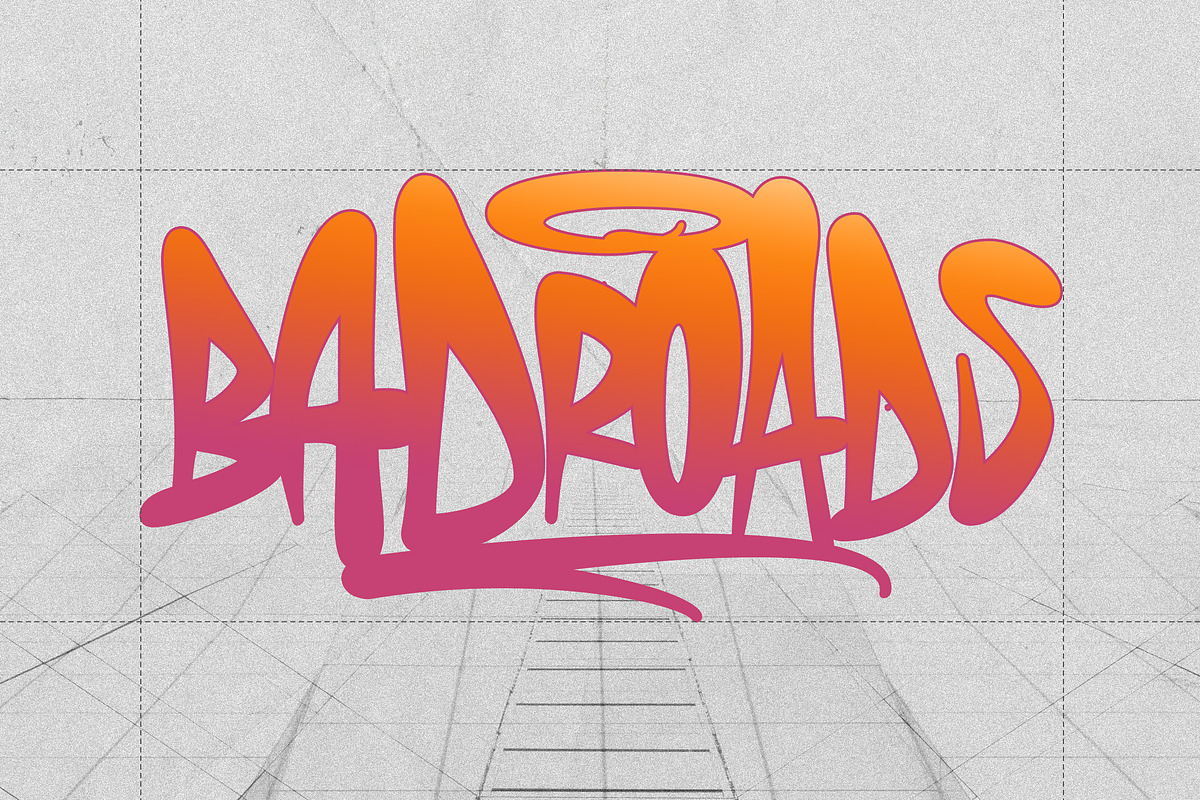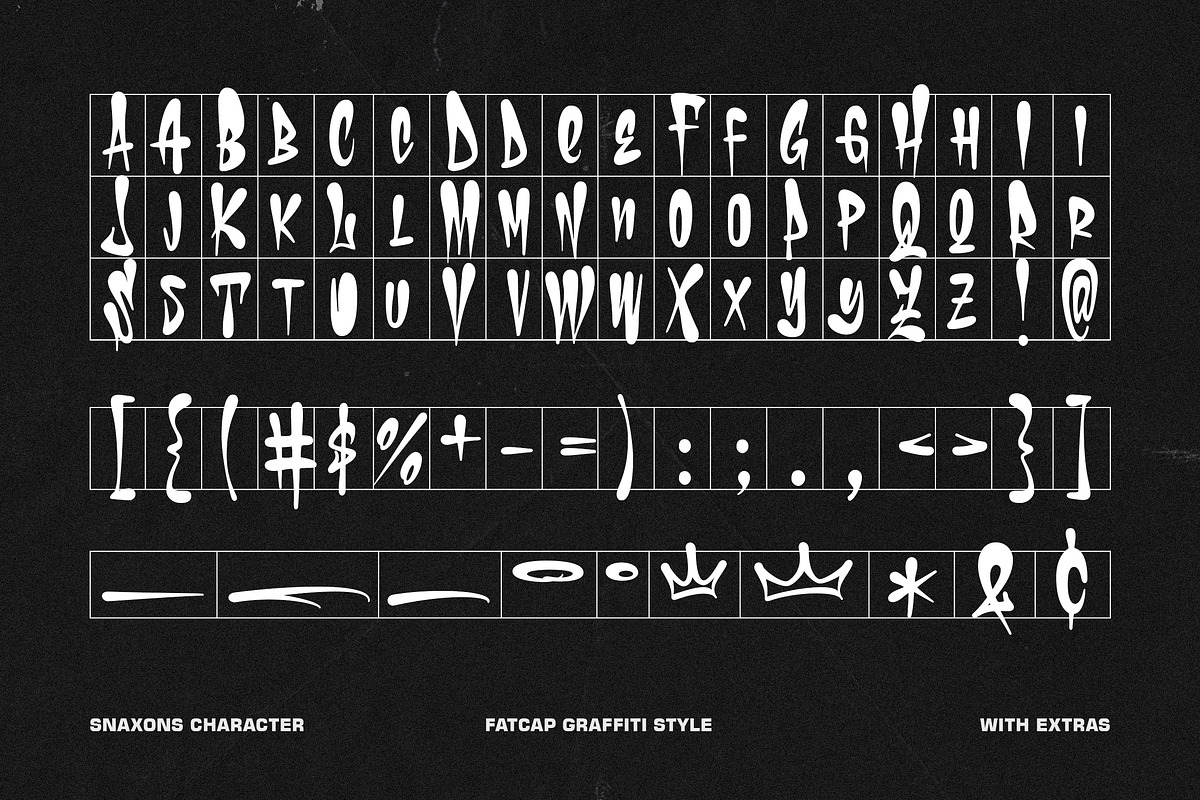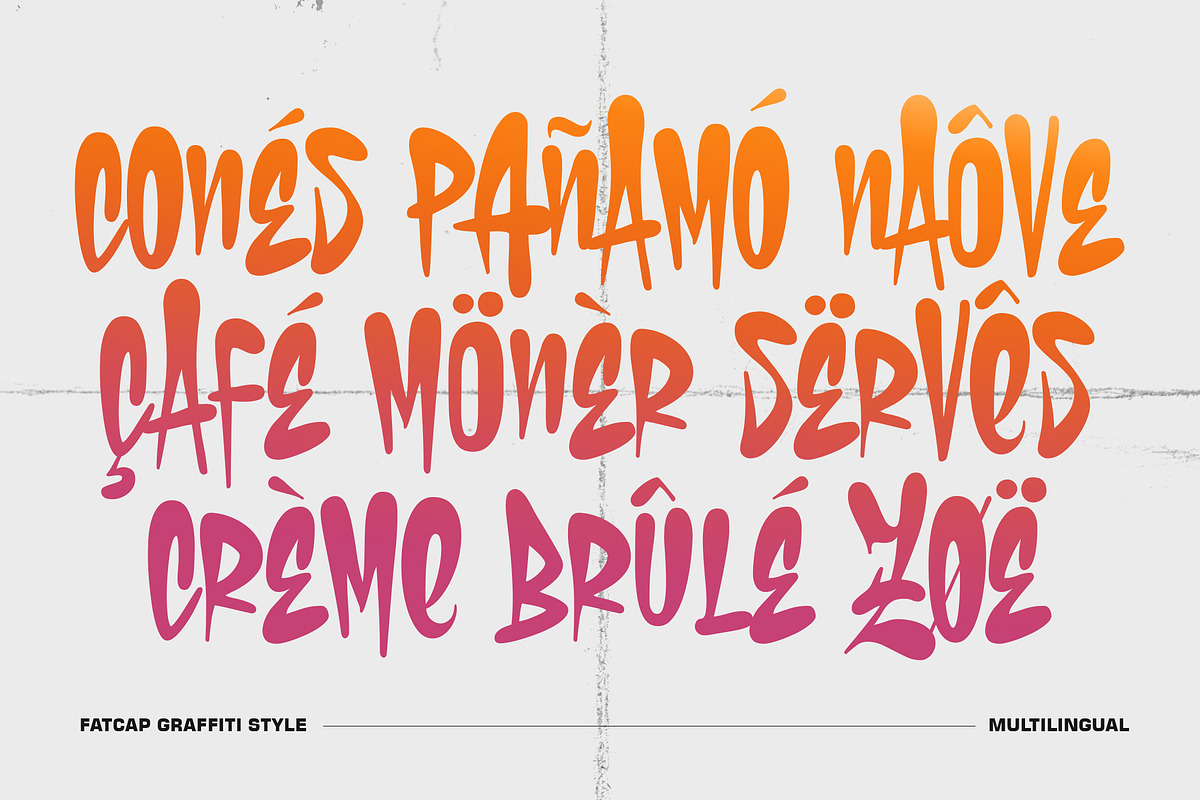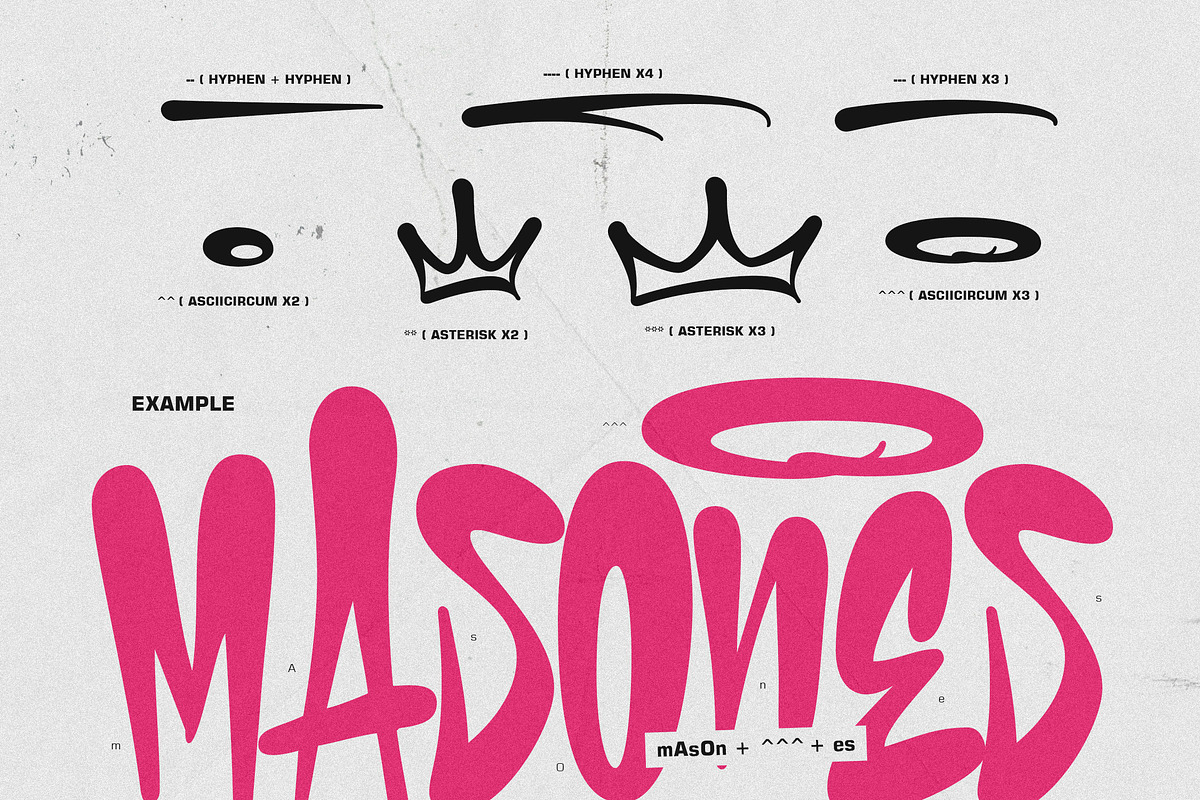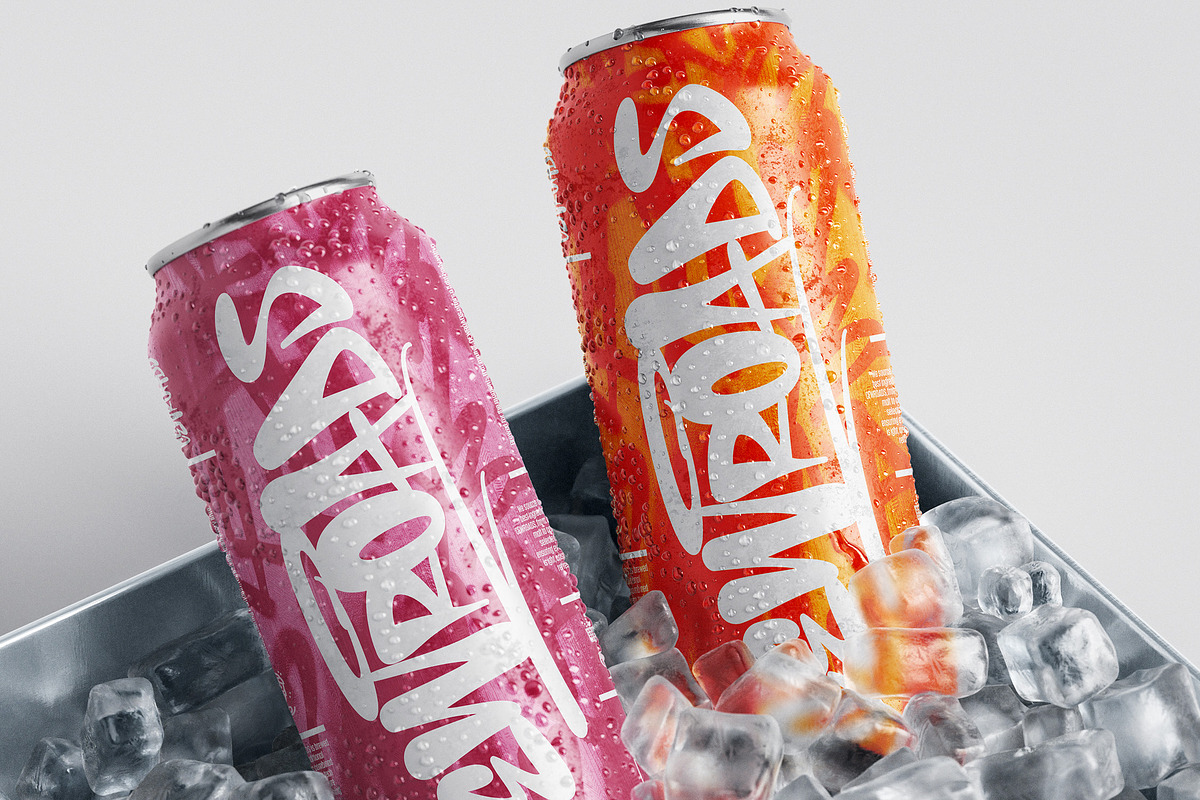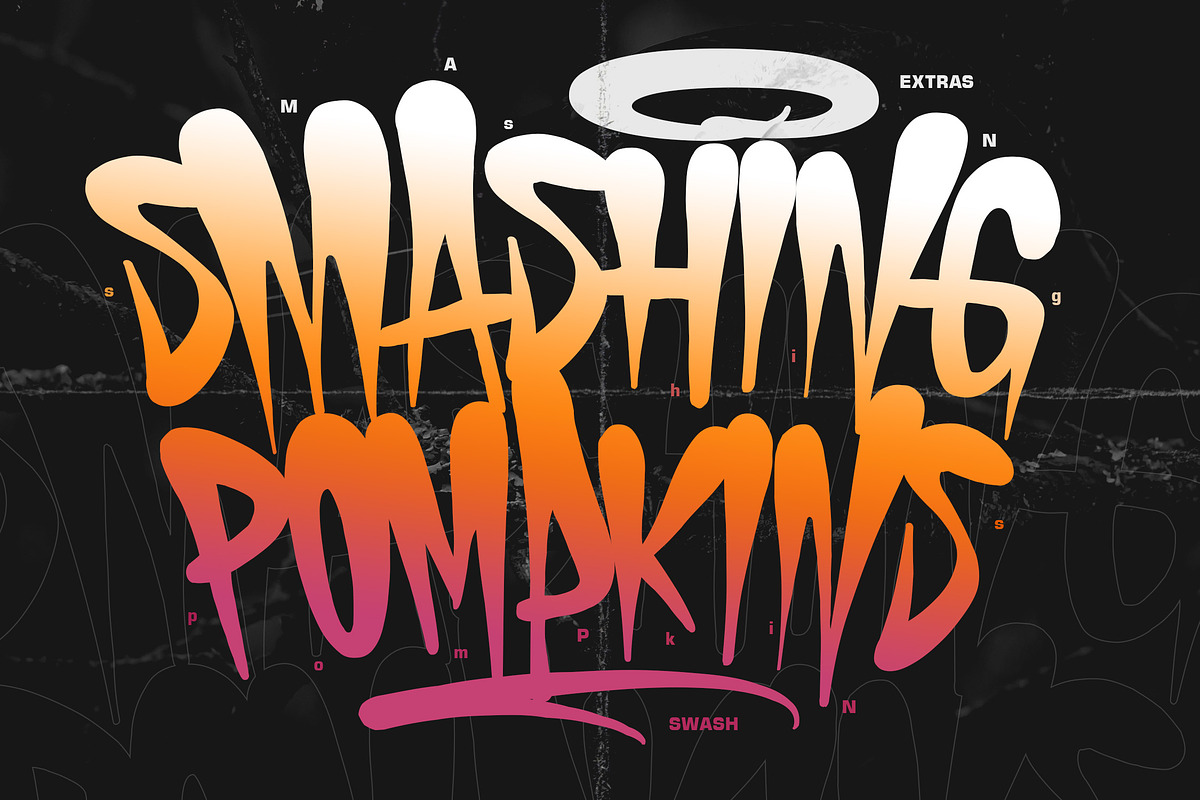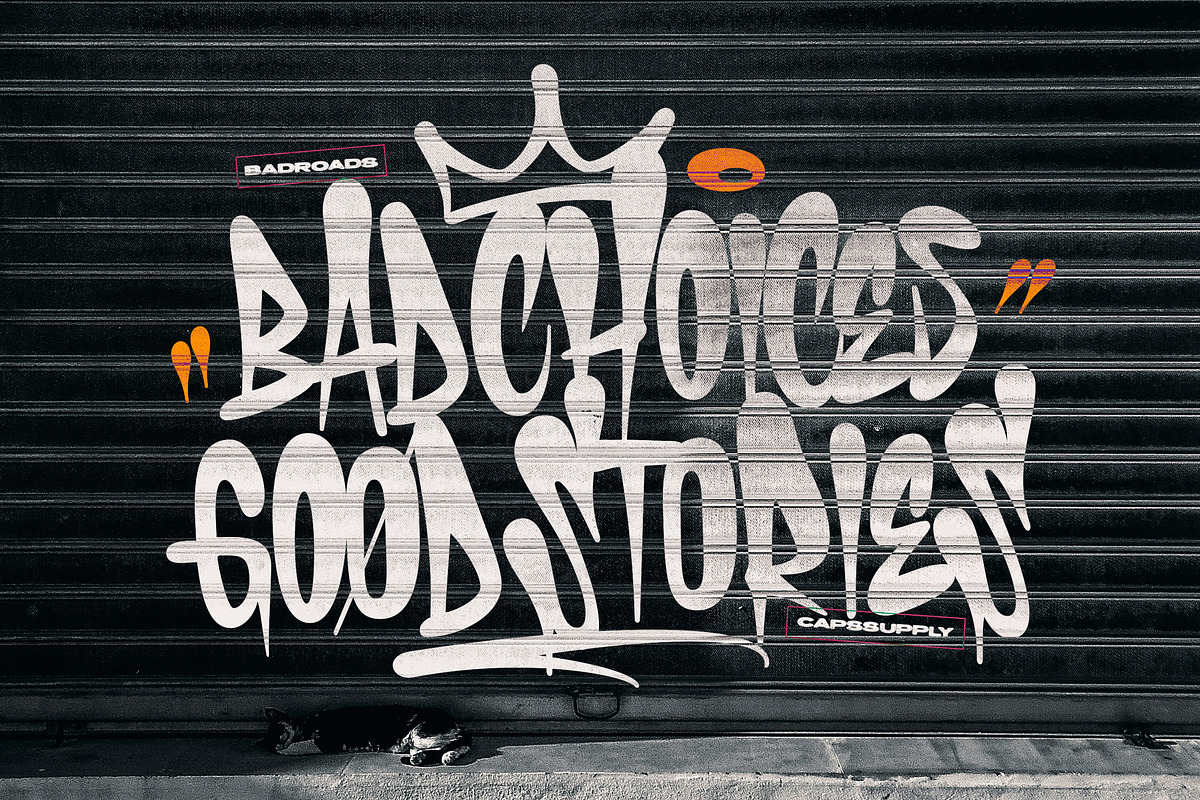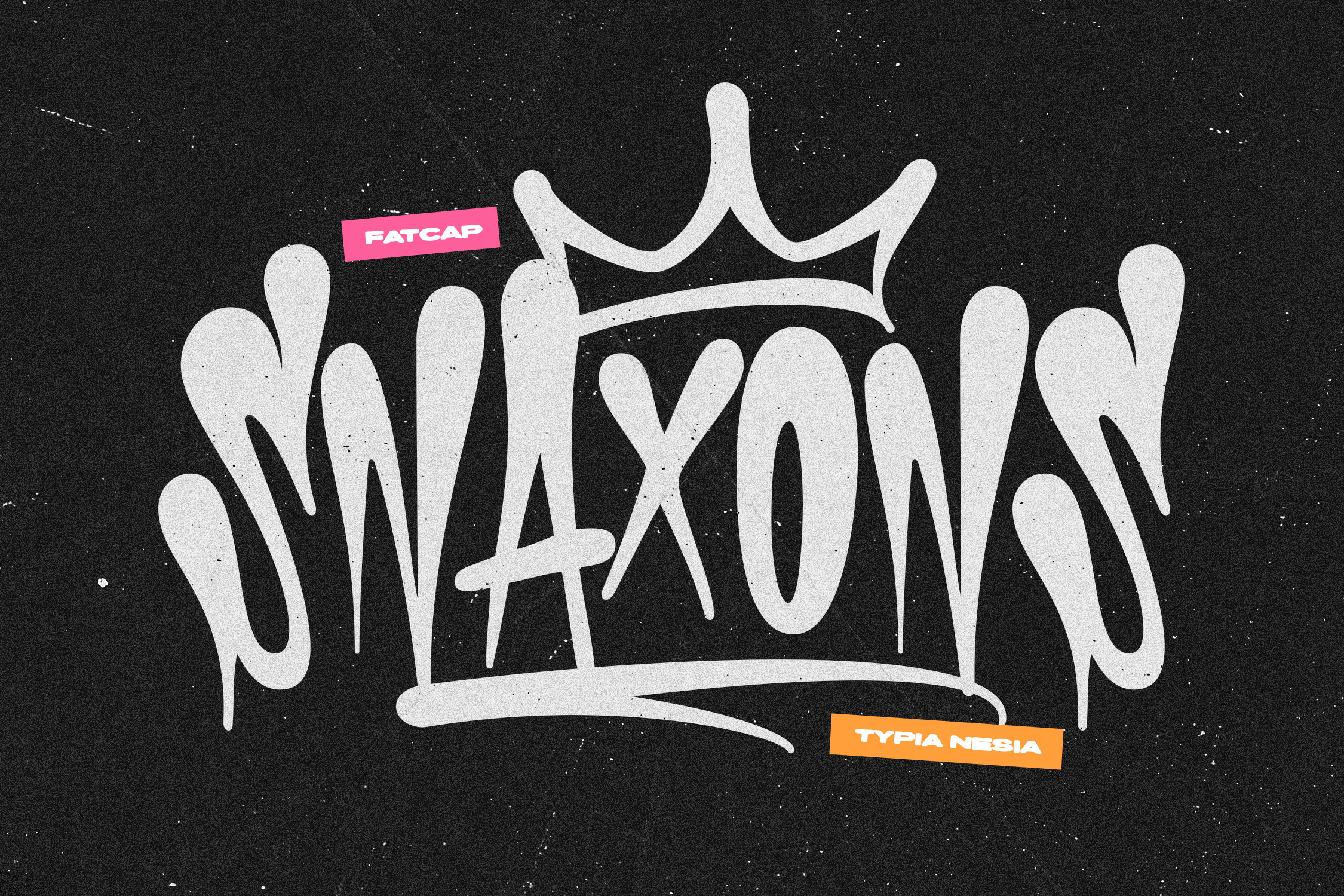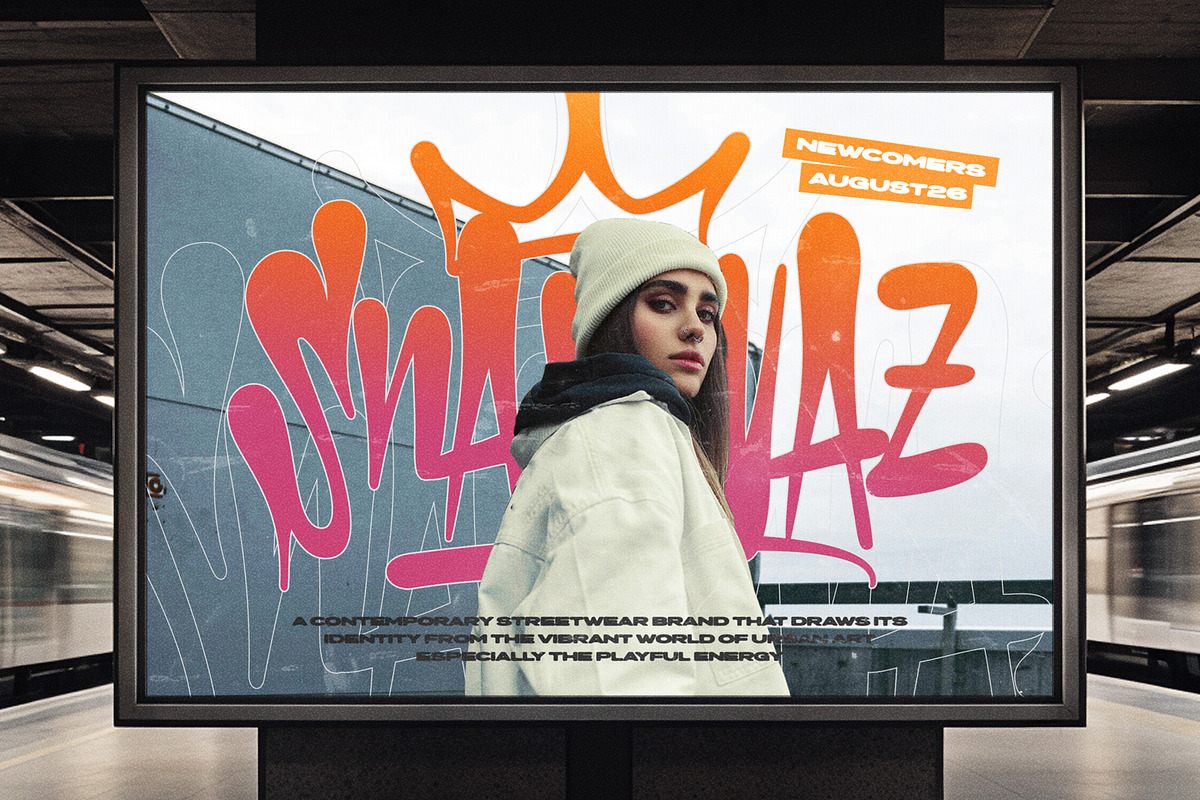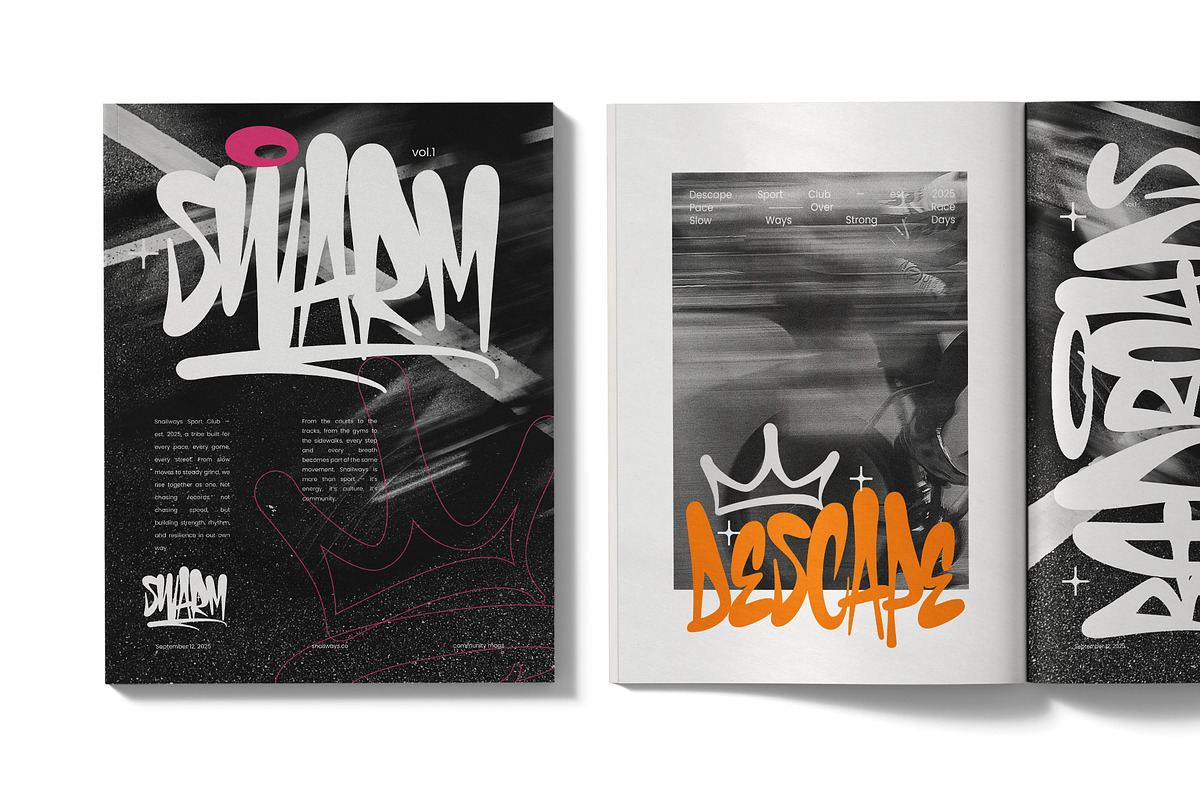
Snaxons - Fat Cap Graffiti Font
Snaxons - Fat Cap Graffiti Font for Street, Hip Hop & Urban Branding
Snaxons is a bold fat cap graffiti display font featuring oversized rounded strokes, authentic spray-paint inspiration, and expressive urban letterforms. Designed to capture the energy of street culture, it delivers a powerful visual impact that stands out across branding, entertainment, and promotional designs.
Perfect for streetwear brands, graffiti-inspired logos, hip hop album covers, esports graphics, event posters, skateboard graphics, stickers, merchandise, social media content, and bold advertising campaigns. It features multilingual support, handcrafted graffiti styling, and eye-catching display proportions, making it ideal for creative projects that demand an unmistakable urban identity.
Take your designs to the streets with Snaxons—a bold graffiti typeface built to make every headline loud, fearless, and unforgettable.